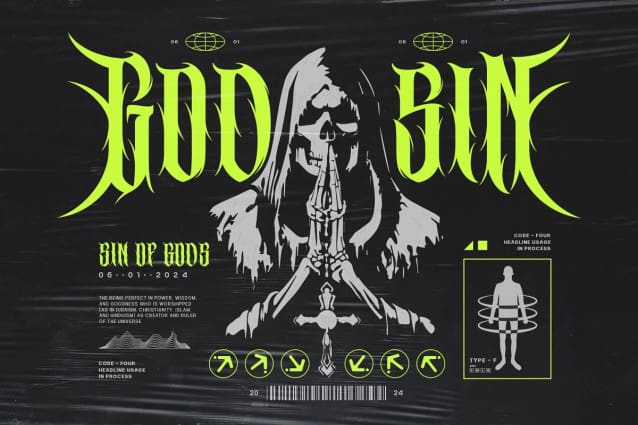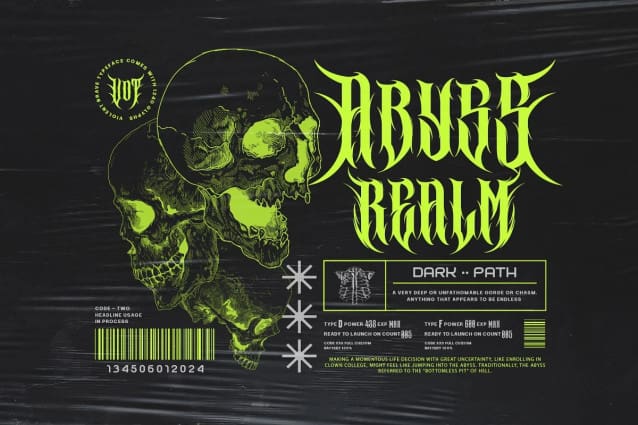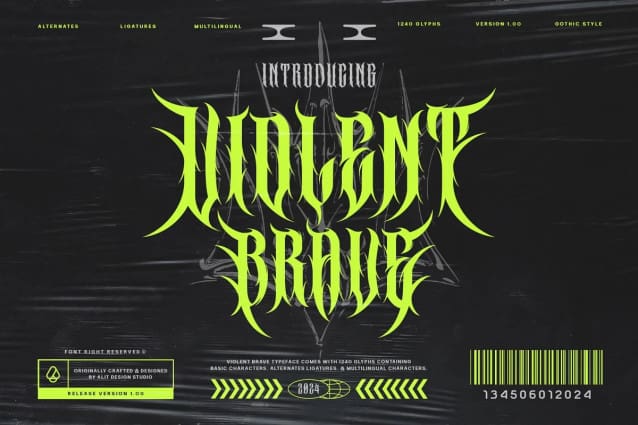
Violent Brave Brutalism Font
Violent Brave Brutalism Font, a cutting-edge font that seamlessly merges modern aesthetics with a fearless and commanding metal concept. This typographic masterpiece is designed for those who seek to make a bold statement with their visual communication.
Design Concept: The Violent Brave Brutalism Typeface exudes an uncompromising and audacious personality. Inspired by the world of heavy metal, the font features fierce and firm spines, capturing the essence of raw power and strength. The design strikes a perfect balance between modernity and bold brutality, making it a standout choice for those who crave a unique and impactful typographic experience.
Style Characteristics: The font boasts a distinctive metal-inspired aesthetic with sharp edges and robust letterforms. Each character is meticulously crafted to convey a sense of aggression and intensity, creating a visual impact that leaves a lasting impression.
Glyph Diversity: With an expansive set of 1240 glyphs, this typeface goes beyond the ordinary. It includes ligatures, alternates, and a comprehensive multilingual character set. The ligatures and alternatives add fluidity and variation to the text, allowing for a dynamic and expressive display of content. The multilingual PUA Unicode support ensures compatibility across various languages, making it a versatile choice for global communication.
Usage Scenarios: Ideal for graphic designers, musicians, and artists who want to inject a dose of unapologetic boldness into their projects. Whether used in album covers, posters, merchandise, or any other creative endeavor, the Violent Brave Brutalism Typeface is designed to command attention and convey a sense of fearless individuality.